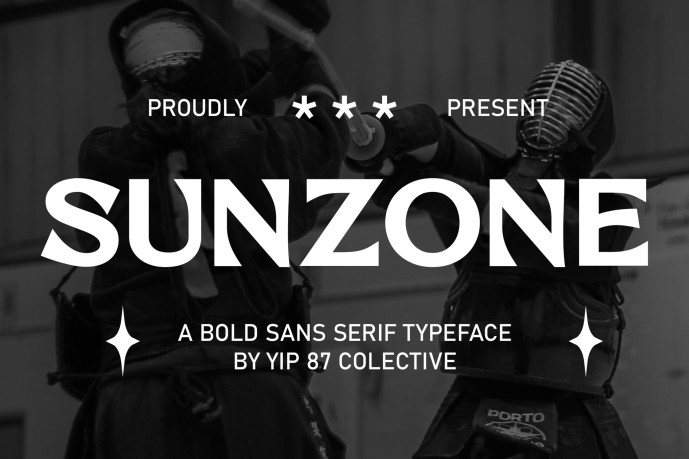
Sunzone Font
Sunzone – Luxury Classic Vintage Serif – Modern Beauty Elegance Fantasy Display Font
Sunzone is a beautifully crafted Classic Vintage Serif font that embodies timeless elegance and beauty. With its refined serifs and Fantasy charm, Sunzone blends classic typography with a touch of modern versatility, making it a perfect choice for luxurious and nostalgic designs, such as branding, logos, editorial designs, book covers, packaging, invitations, signage, advertising, movie titles, game interfaces, vintage-themed projects, and more.
Designed for elegance and versatility, Sunzone is perfect for designers and creatives seeking a vintage and classic serif font, this font brings an aura of sophistication and classic aesthetic to any creative work.